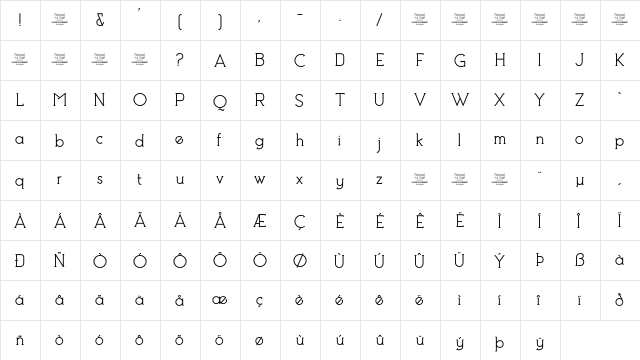
Debock Personal Use Regular
| Foundry | Tama Putra |
| Designer | Tama Putra |
Design Context for Debock Personal Use Typeface
Debock Personal Use offers clean, dependable letterforms without strong stylistic allegiance, making it a practical choice for designers who need flexibility.